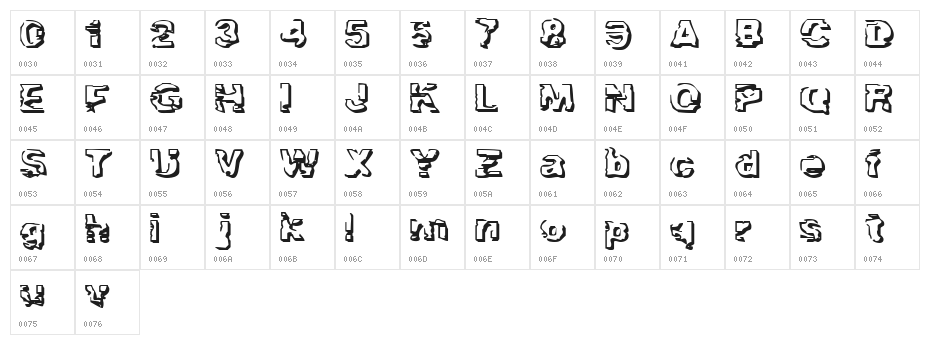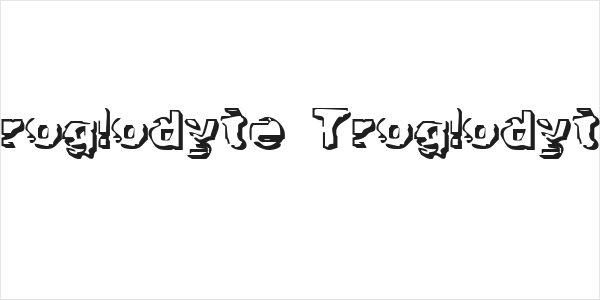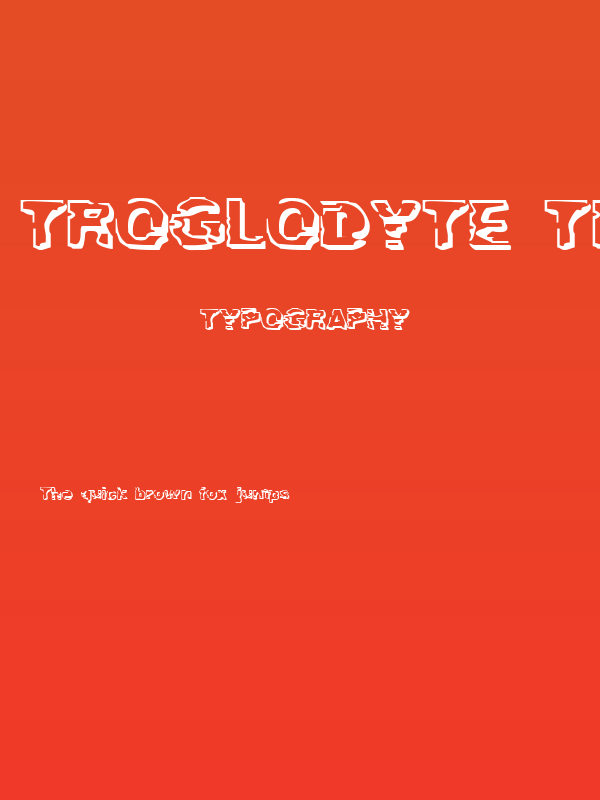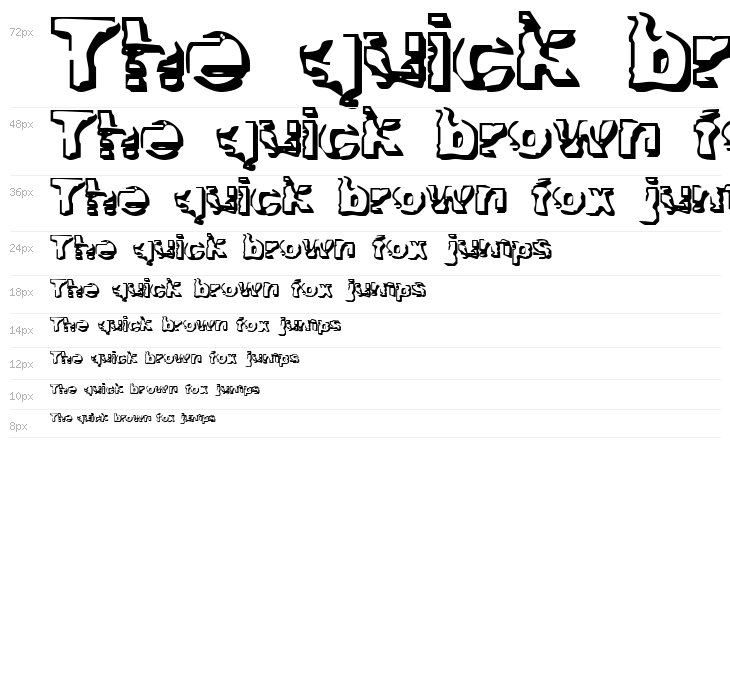
Troglodyte Font
Troglodyte Description
This font features a bold and dynamic style with a rugged, distressed appearance. The characters are outlined with a thick black stroke, giving them a three-dimensional effect. The interior of each letter is filled with a white space that is irregular and jagged, adding to the font's unique and edgy look. The uppercase and lowercase letters maintain a consistent style, with the uppercase being slightly larger and more pronounced. Numbers and special characters follow the same design principles, ensuring a cohesive appearance across all glyphs. The font's overall aesthetic is bold and eye-catching, making it suitable for projects that require a strong visual impact.
| Proposed Projects | Ideal for posters, album covers, and branding projects that require a bold and edgy look. |